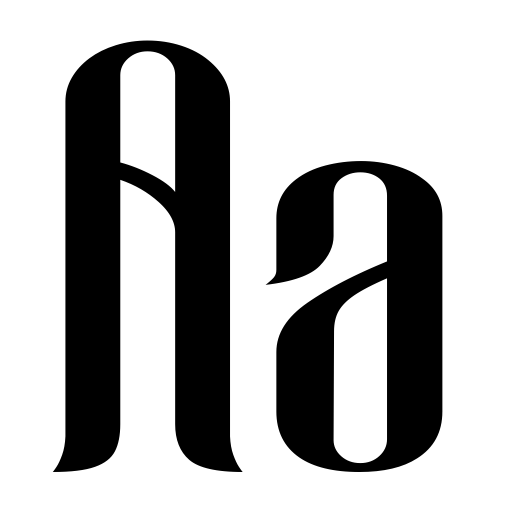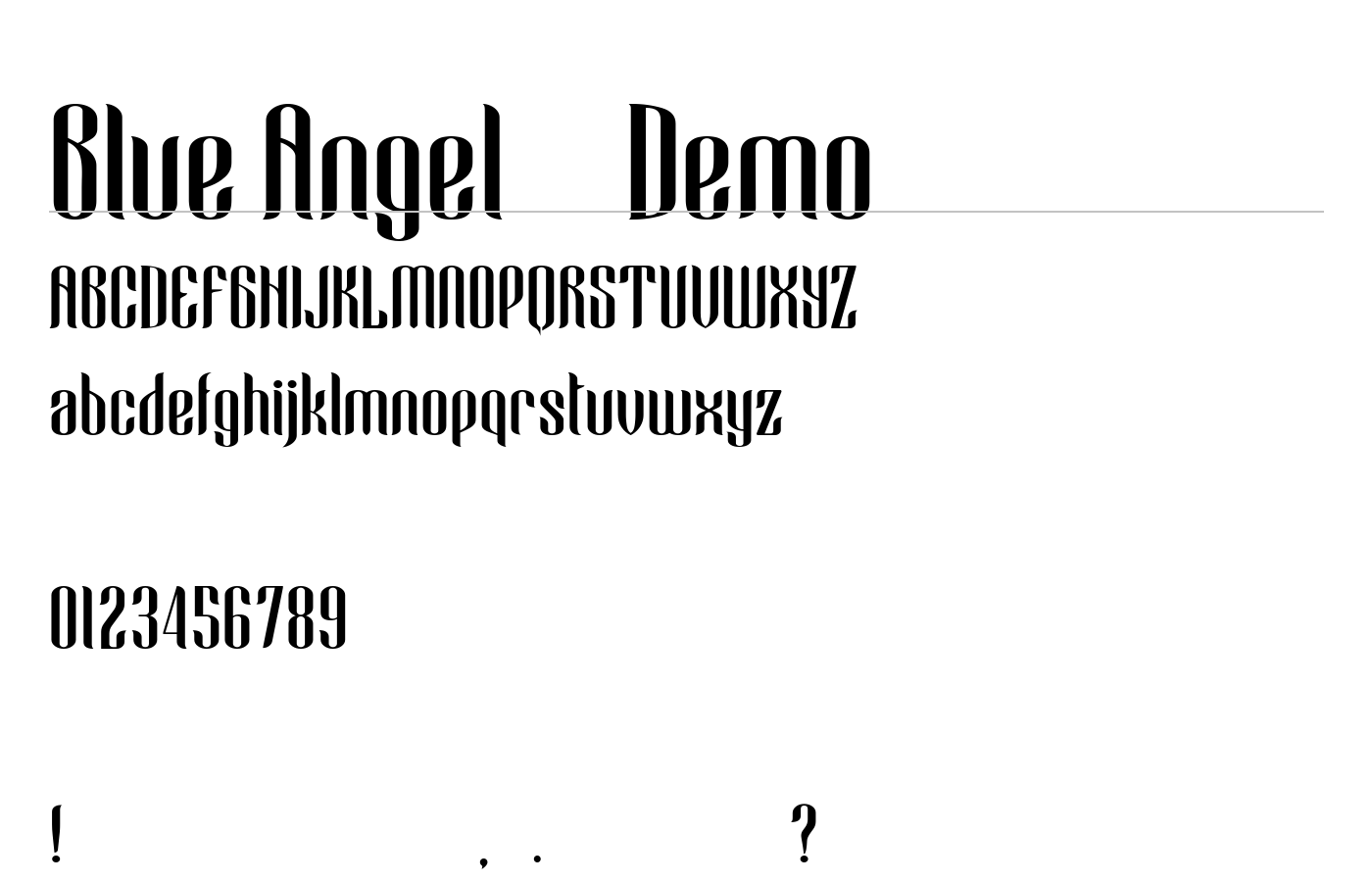
Blue Angel is a condensed serif font with a striking vintage flair, characterized by its tall, narrow letterforms and high contrast between thick and thin strokes. Its sharp, stylized serifs and elegant curves create a unique and sophisticated look, making it ideal for eye-catching headlines, logos, and branding that seek a dramatic, classic yet modern vibe. This font works best in designs that require a bold, refined presence with a touch of retro charm.
Blue Angel - Demo Font
About Blue Angel - Demo Font